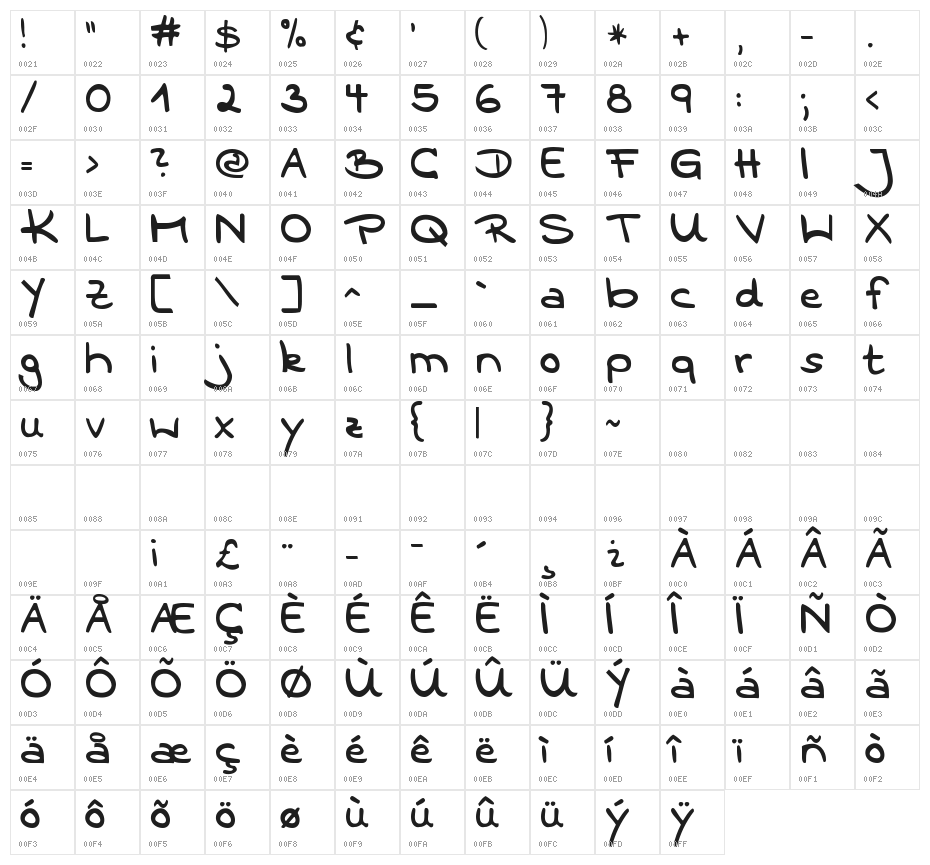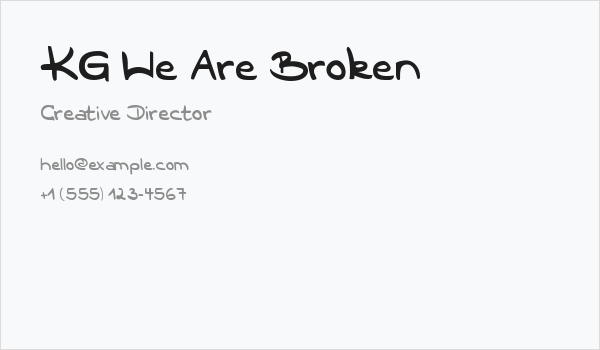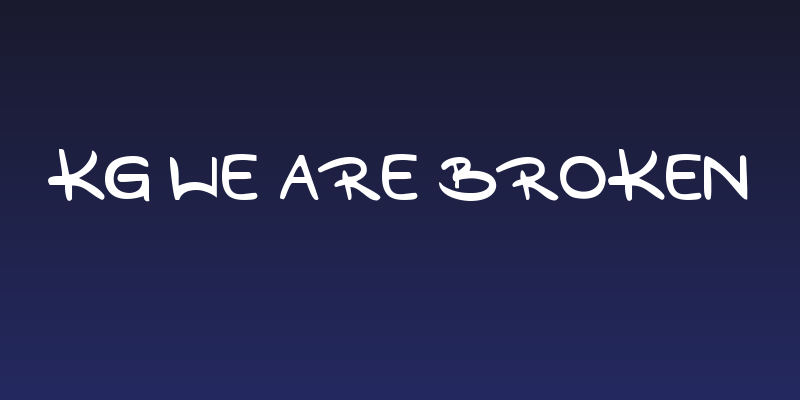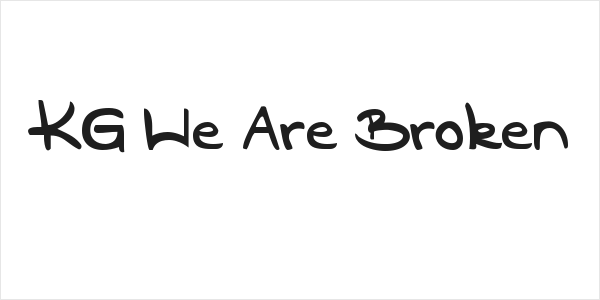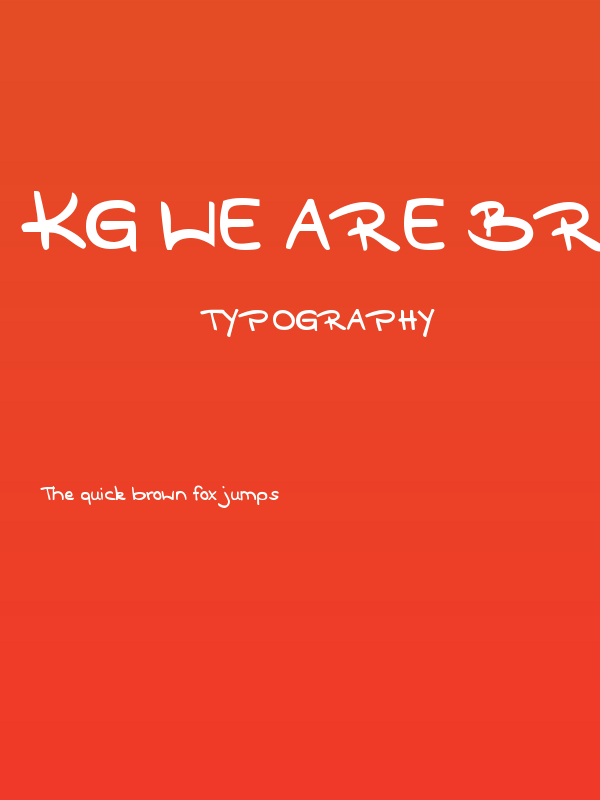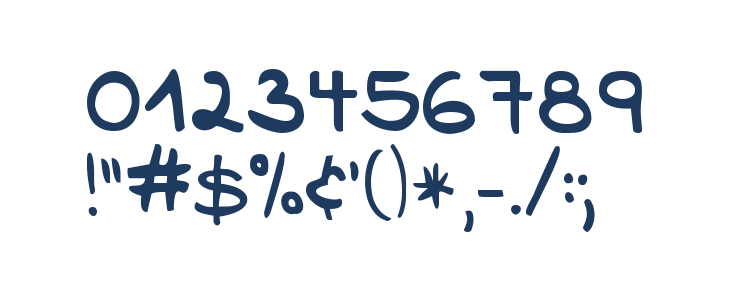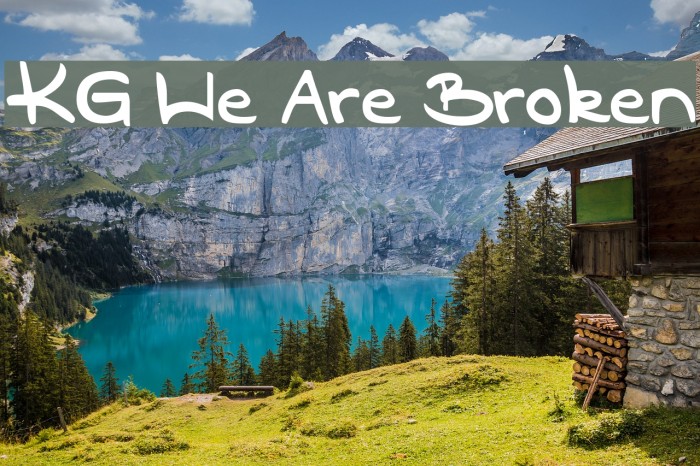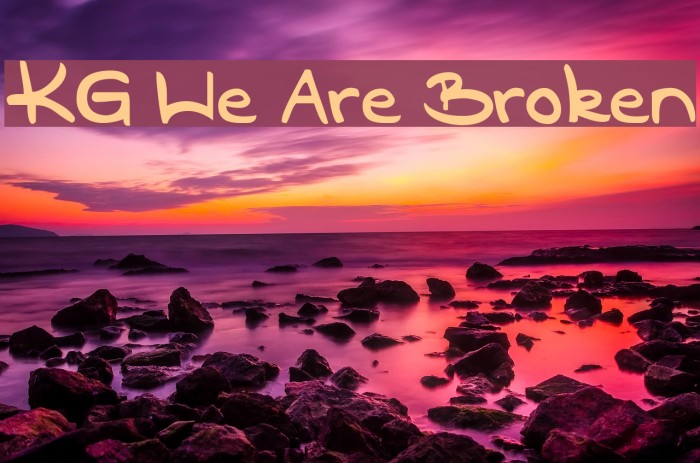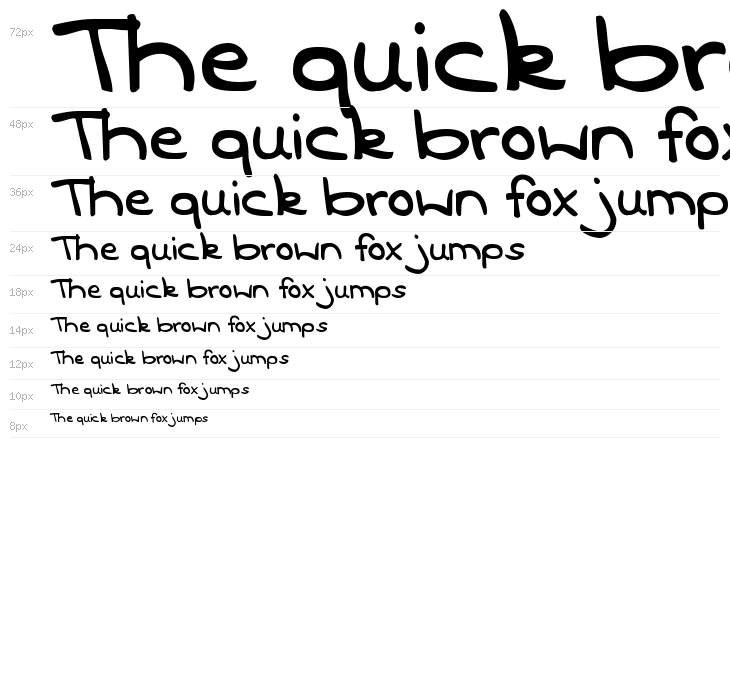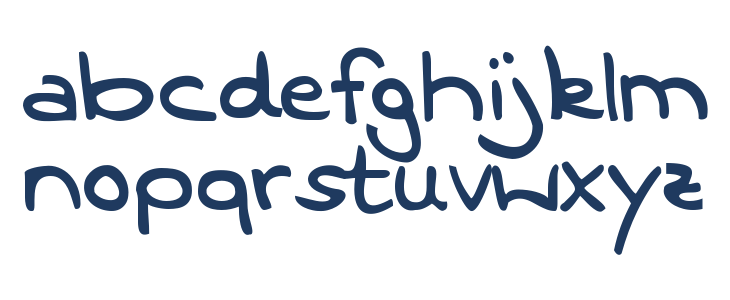
KG We Are Broken Font
KG We Are Broken Description
This playful and whimsical font features a handwritten style with a casual, friendly appearance. The characters are slightly irregular, adding a sense of spontaneity and creativity. The strokes are bold and rounded, giving it a soft and approachable feel. The uppercase and lowercase letters maintain a consistent style, with a slight tilt that enhances its informal nature. Numbers and special characters are designed to match the playful aesthetic, making it suitable for projects that require a personal touch.
| Proposed Projects | Ideal for children's books, greeting cards, playful branding, and informal invitations. |